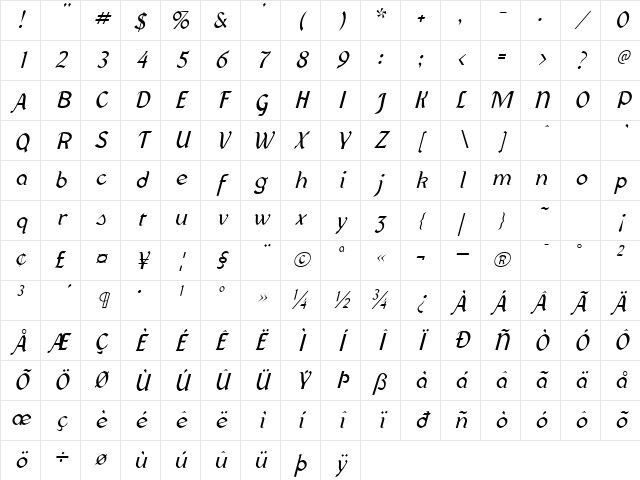
Federhozen Italic Free Font
Federhozen Italic
Federhozen Family
Design Context for Federhozen
Federhozen is a composed and adaptable typeface that performs quietly and consistently across a wide range of design contexts. The slanted form adds forward momentum and visual energy.
Pro Tip: Use Federhozen for emphasis, pull quotes, and subheadings where its slanted energy can add rhythm to the layout.